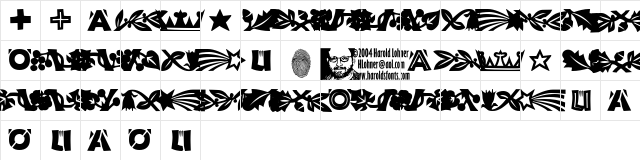
Copyright: KOCH DINGBATS computer font v1.0 004 Harold Lohner " HLohner @aol.com "https://www.haroldsfonts.com Rudolf Koch's original dingbats and accented letters to coordinate with his classic font NEULAND or my Bride of the Monster fonts.